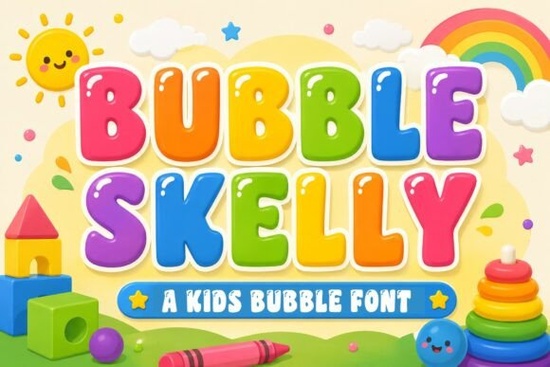
If you're looking for a playful, cheerful font that instantly adds personality to kids' projects or lighthearted branding, Bubble Skelly Font is worth a closer look. With its rounded, cartoon-inspired letterforms and bright visual energy, it’s designed to bring smiles whether you’re making birthday invitations, nursery wall art, or fun social media graphics.
Unlike stiff or overly decorative display fonts, Bubble Skelly feels approachable and friendly. Its bubbly shapes work especially well when you need something eye-catching but not overwhelming ideal for crafters, small business owners creating toy packaging, or teachers designing classroom materials.
What makes Bubble Skelly stand out from other display fonts?
Many display fonts lean heavily into either whimsy or structure, but Bubble Skelly strikes a balance. It’s got enough character to feel unique without sacrificing readability at larger sizes. Plus, it includes both uppercase and lowercase letters, numbers, punctuation, and multilingual support so you’re covered for most everyday design needs.
Who should use this font?
Bubble Skelly shines in any project where joy and simplicity matter. Think:
- Children’s party invites – The rounded letters feel celebratory and age-appropriate.
- Nursery or playroom decor – Use it for wall decals, growth charts, or personalized name signs.
- Educational printables – Flashcards, worksheets, or classroom labels become more engaging.
- Print-on-demand products – T-shirts, tote bags, or mugs with phrases like “Best Big Brother” pop with this style.
- Social content – Instagram stories or TikTok overlays benefit from its bold, readable charm.
If your brand voice is warm, playful, or kid-focused, this font aligns naturally. It’s less suited for formal or minimalist designs but that’s by design. Not every project needs seriousness.
How does it compare to similar Creative Fabrica fonts?
Creative Fabrica offers several fun display fonts, each with its own vibe. For example, if you like hand-drawn energy, you might also enjoy Doodle Line, which has a sketch-like feel. Or if you prefer chunky, bold lettering with texture, Brick Stacked gives a more grounded, tactile look.
For softer, floral-inspired playfulness, Crafty Bloom blends whimsy with elegance great for baby showers or spring-themed crafts. And if you’re working on western or rustic kids’ projects, Cowboy Block adds a thematic twist without losing friendliness.
All of these complement different moods, but Bubble Skelly remains one of the most universally cheerful options for pure, uncluttered fun.
Tips for using Bubble Skelly effectively
Because of its bold, rounded nature, Bubble Skelly works best as a headline or accent font not for body text. Keep these pointers in mind:
- Pair it wisely: Combine with a clean sans-serif (like Montserrat or Open Sans) for contrast and clarity.
- Avoid tight spacing: The letters already have generous curves; extra tracking can make words feel disconnected.
- Use color thoughtfully: Bright pastels or primary colors enhance its playful spirit, but even black on white reads clearly.
- Test at scale: If you’re cutting vinyl or printing large posters, check how fine details render though Bubble Skelly’s simple shapes usually hold up well.
It’s also worth noting that because it includes full punctuation and numbers, you can confidently use it for pricing tags, countdowns (“3 days until the party!”), or labeled diagrams in educational kits.
Ready to try it?
If your next project calls for warmth, simplicity, and a dash of cartoon charm, Bubble Skelly delivers without fuss. It’s easy to install, widely compatible, and packed with practical glyphs making it a reliable go-to for creatives who value both aesthetics and functionality.